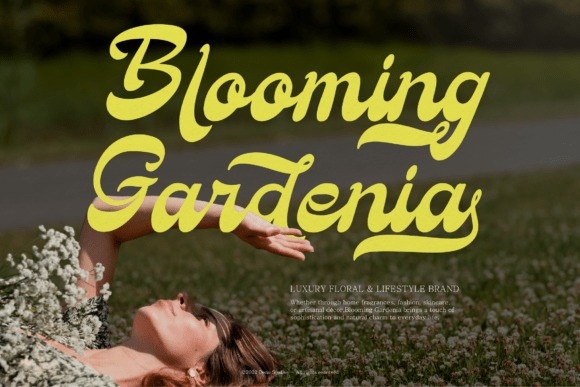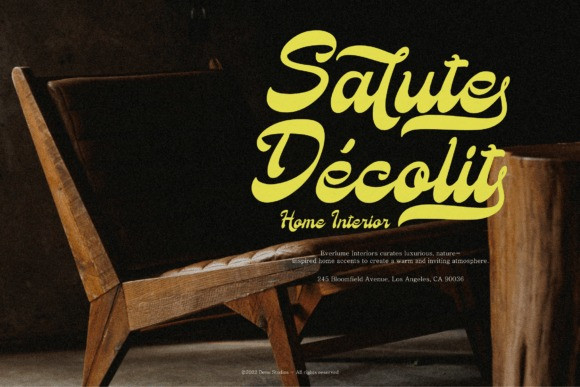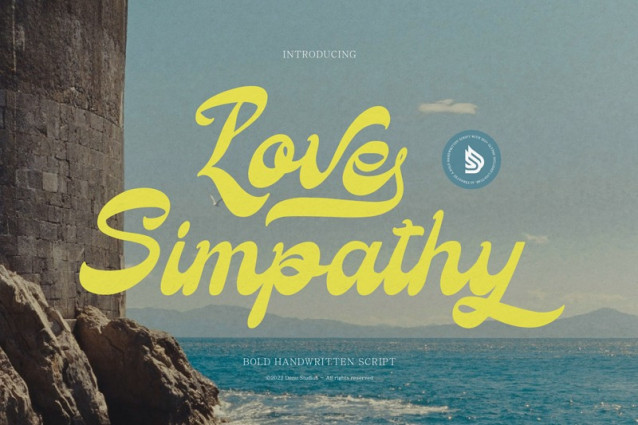
Love Simpathy Font
Love Simpathy Font is a bold script font, suitable for any projects such as: logos, branding projects, homeware designs, product packaging, mugs, quotes, posters, shopping bags, t-shirts, book covers, name card, invitation cards, greeting cards, label, photography, watermark, special events, and all your other lovely projects that need a Bold Handwritten Script taste.